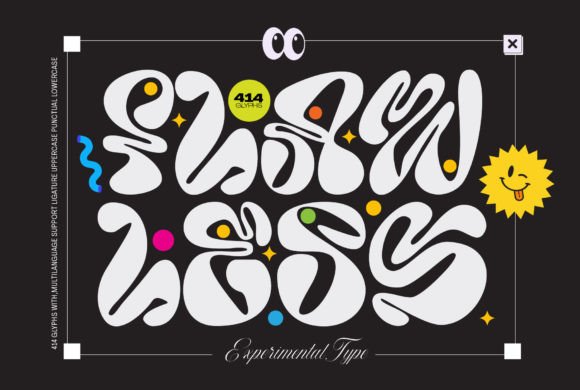
Spark Untamed Expressions with Flawless Font: Where Creativity Takes Shape
In a world adorned with digital tapestry, typography stands as the cornerstone of visual communication. The fonts you choose have the power to transform your creation from ordinary to extraordinary, evoking emotions, conveying messages, and captivating audiences. Introducing Flawless Font, a revolutionary fusion of serif and groovy fonts, masterfully crafted to ignite your artistic vision and empower your creative journey.
Flawless Font is not just a collection of letters; it's a symphony of shapes, lines, and curves, engineered to unleash your storytelling potential. With its elastic and playful design, this display font bends and twists, morphing into a visual spectacle that captivates and enchants. Unleash your imagination and delve into a realm of limitless possibilities, where Flawless Font becomes your trusted companion in crafting designs that resonate with your audience.
Designed with meticulous attention to detail, Flawless Font pays homage to the heritage of typography while embracing the fluidity of modern aesthetics. Its unique blend of serif's elegance and groovy's vibrance creates a captivating visual tension that dances across your designs. Whether you're creating logos, branding, titles, or clothing, Flawless Font seamlessly adapts, becoming an extension of your creative expression.
Enter a world where imagination knows no bounds. With Flawless Font, transcend the ordinary and embark on a typographic adventure. Feel the thrill of pushing creative boundaries as you witness your words transform into striking visuals. Embrace the power of expression and elevate your designs to new heights. Flawless Font is not just a font; it's a gateway to unleash the boundless creativity within you.